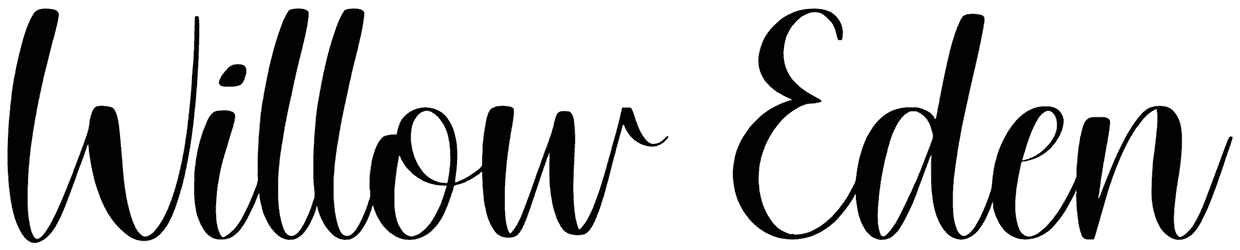
Willow Eden Font
One of the advantages of Willow Eden is the inner elegance that can be seen in every letter of this handwritten font. The way to connect the letters can make you unnecessary of any other decorations and increase your design speed.
This calligraphy font can create originality and, at the same time, make a sense of freshness, modernity, and youth in the viewer. So, it’s an ideal choice for writing wedding card text, photo album entries, and greeting cards.